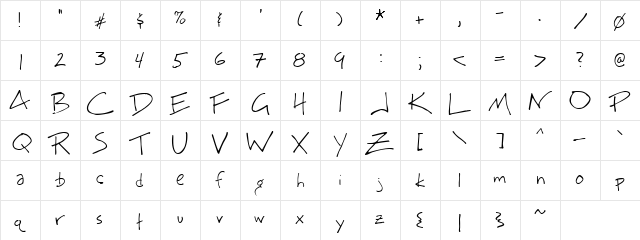
AIN Steno Regular
Design Context for AIN Steno Typeface
AIN Steno is a composed and adaptable typeface that performs quietly and consistently across a wide range of design contexts.